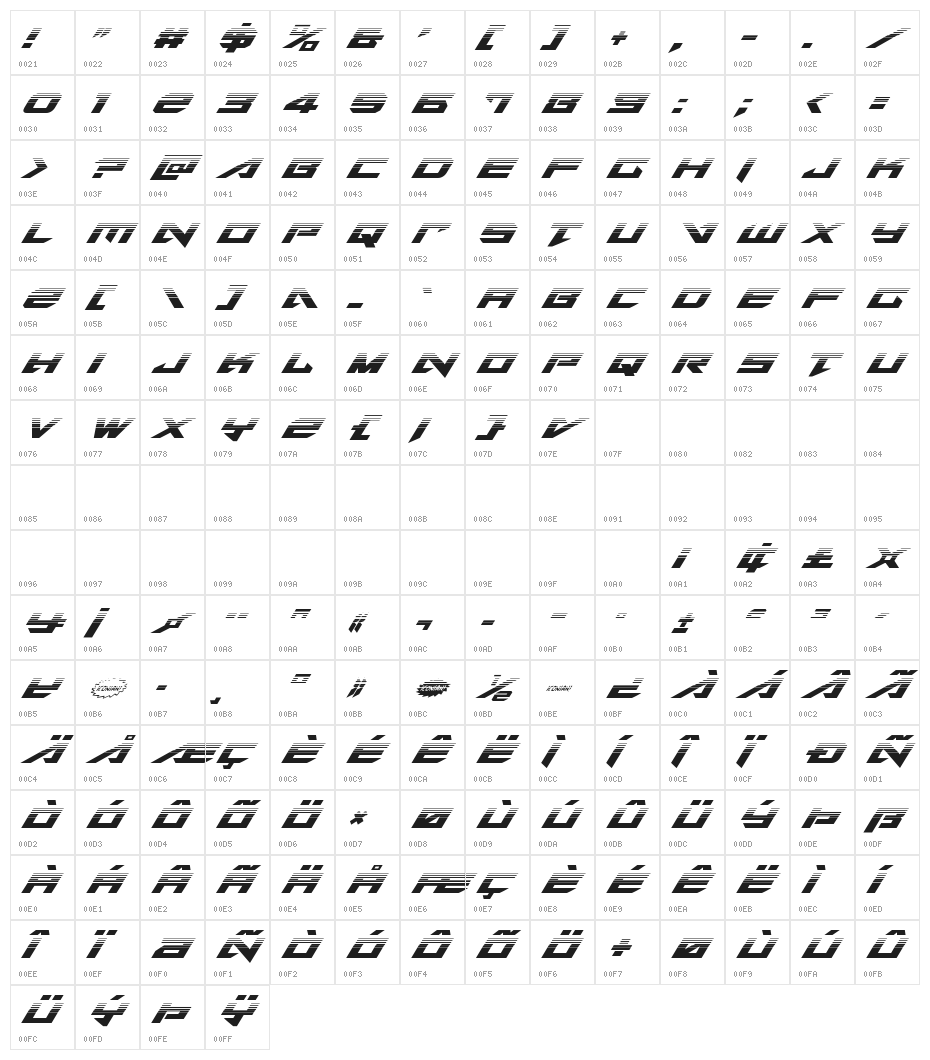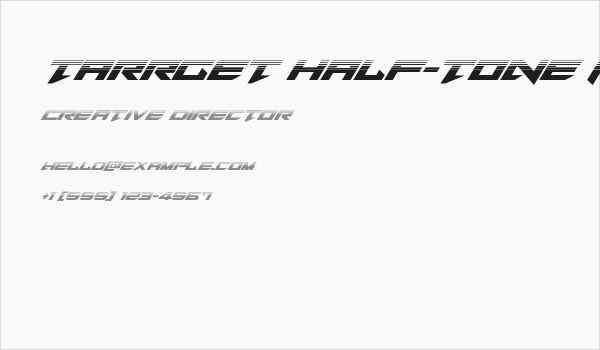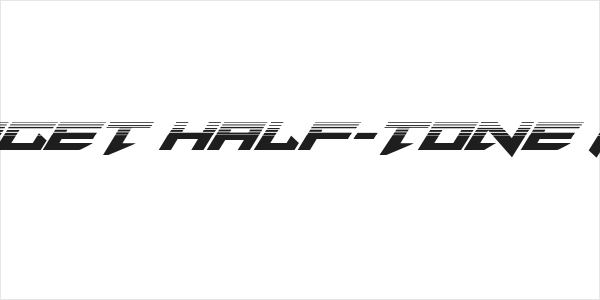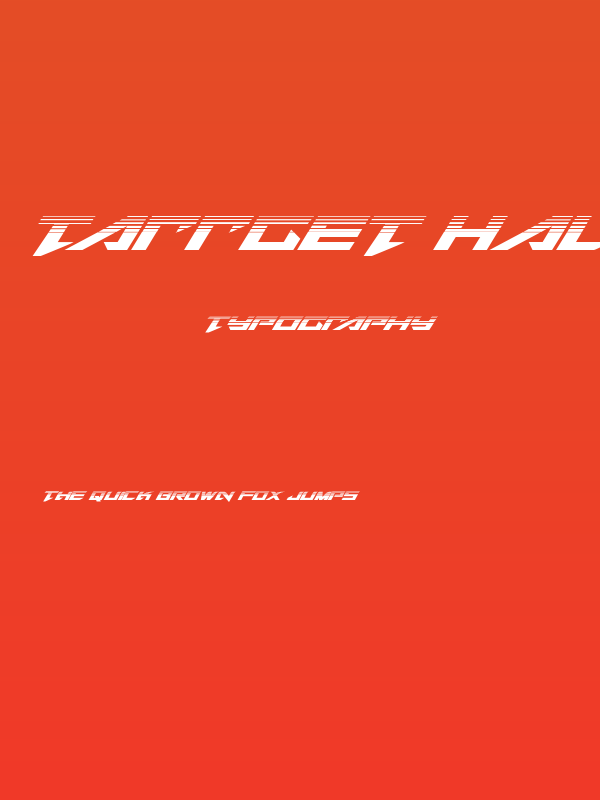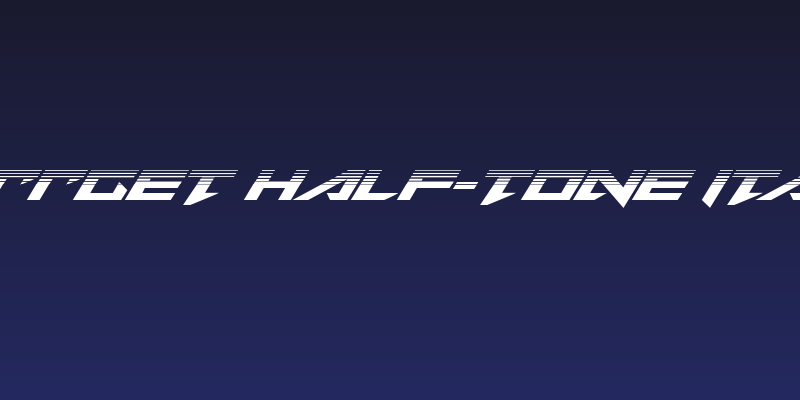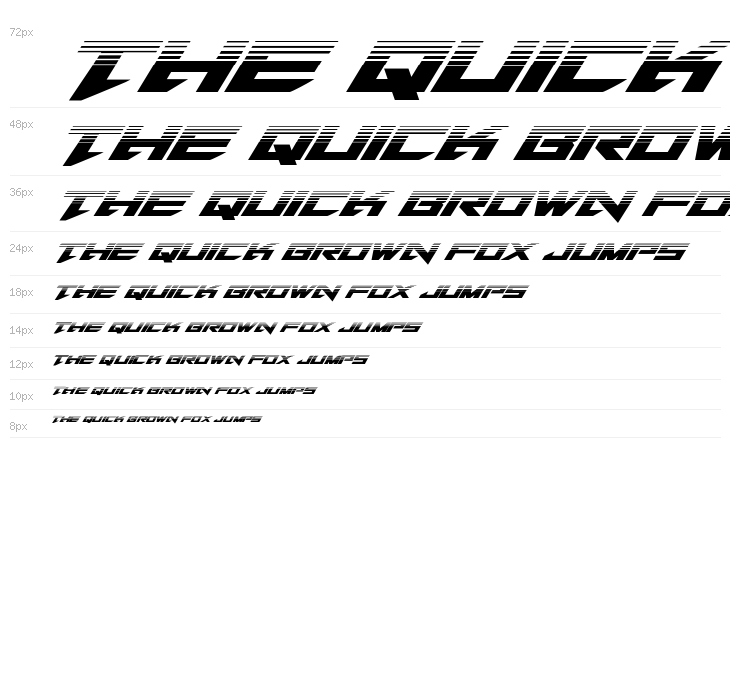
Tarrget Half-Tone Italic Font
Tarrget Half-Tone Italic Description
This font features a bold, italicized style with a distinctive half-tone effect, giving it a dynamic and futuristic appearance. The characters are sharply angled, with horizontal lines creating a sense of motion and speed. The uppercase and lowercase letters maintain a consistent slant, enhancing the italic effect. The numbers and special characters follow the same design principles, ensuring uniformity across all glyphs. This font's unique design makes it stand out, ideal for projects that require a modern and edgy look.
| Proposed Projects | Ideal for sports branding, futuristic designs, tech-related projects, and dynamic advertising campaigns. |